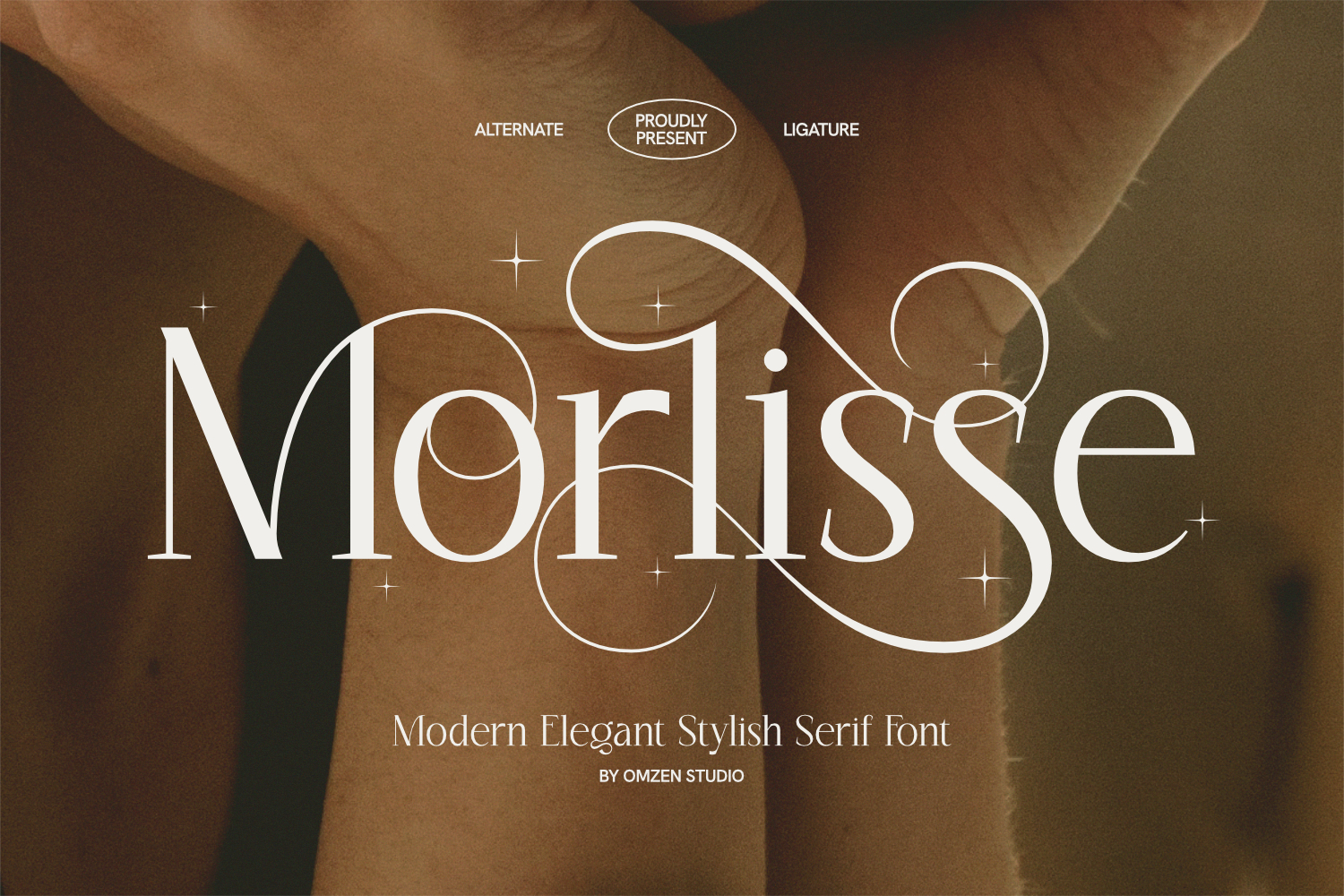
Morlisse | Luxury Stylish Serif Font
Morlisse is a sophisticated modern serif font designed to bring a touch of luxury and class to your creative projects. Characterized by its high contrast and fluid decorative ligatures, this typeface is perfect for designers looking to achieve a timeless aesthetic.
Whether you are working on high-end fashion branding, editorial layouts, or elegant wedding invitations, Morlisse offers the versatility and style needed to stand out. Its unique alternates and ligatures allow for custom typography that feels bespoke and professionally crafted.
• Uppercase and Lowercase letters
• Numbering and Punctuations
• Alternate & Ligature Characters
IDEAL FOR:
• Logo branding and identity
• Editorial and magazine design
• Luxury product packaging
• Social media graphics
• Wedding stationery
• Website headers